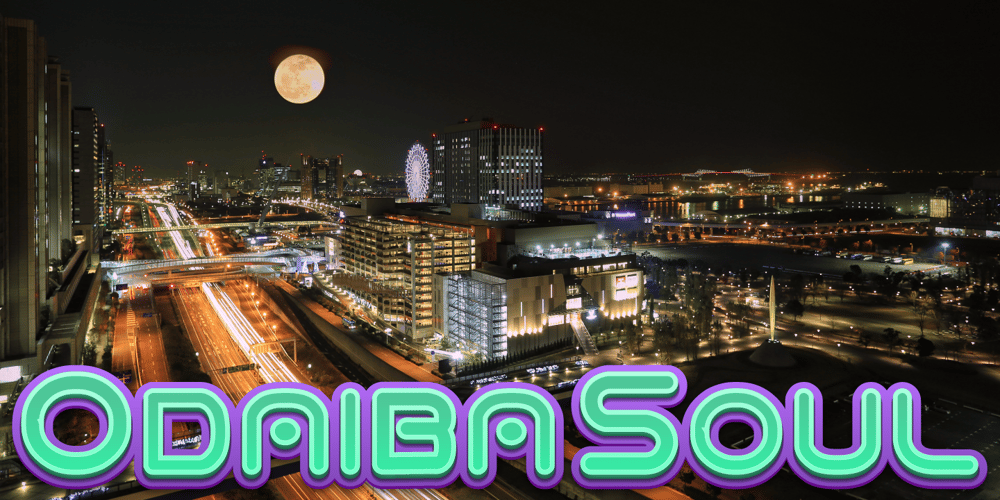
Odaiba Soul Font Family was designed by Rob Barba and published by Megami Studios. Odaiba Soul contains 3 styles and family package options. The second in our Cool Japan series, Odaiba Soul echoes back to some of the futuristic amusement centers and entertainments found on Odaiba Island in Tokyo Bay. Tailored for sci-fi lettering, anime awesomeness or even just making flyers for a day trip across the Rainbow Bridge, this is one to keep in mind!